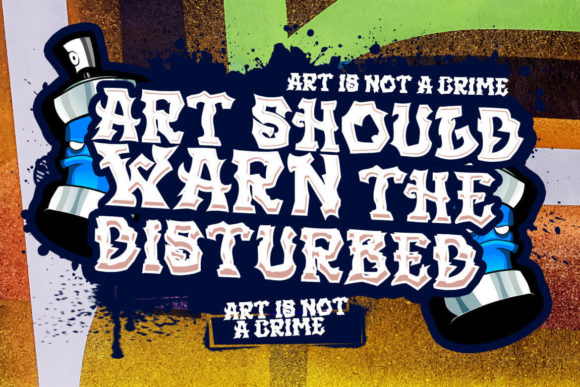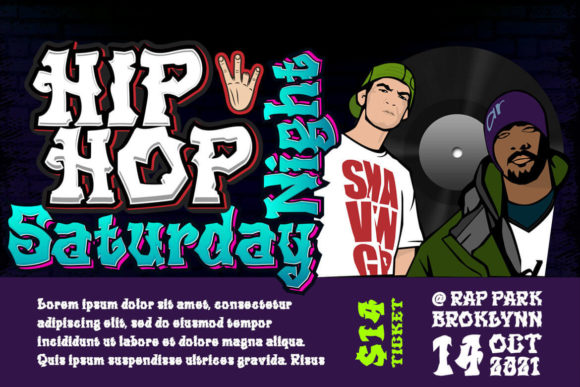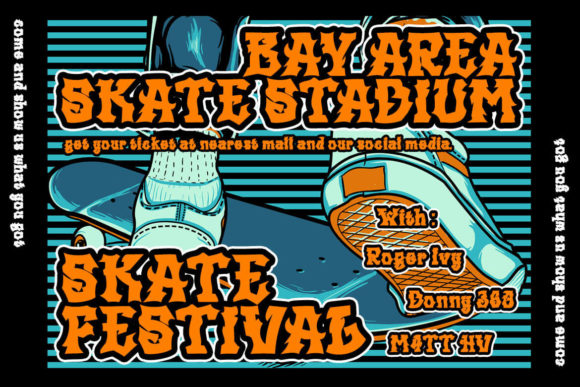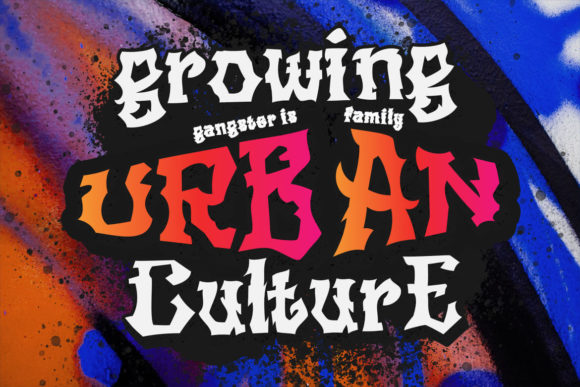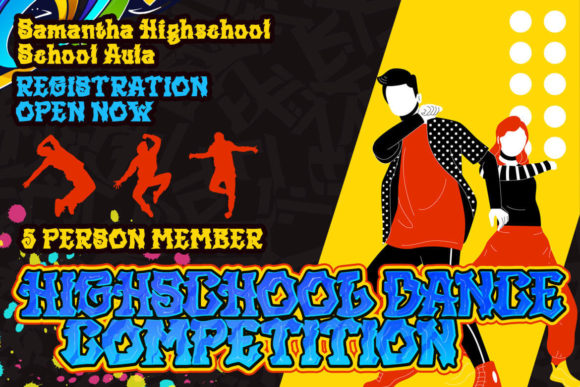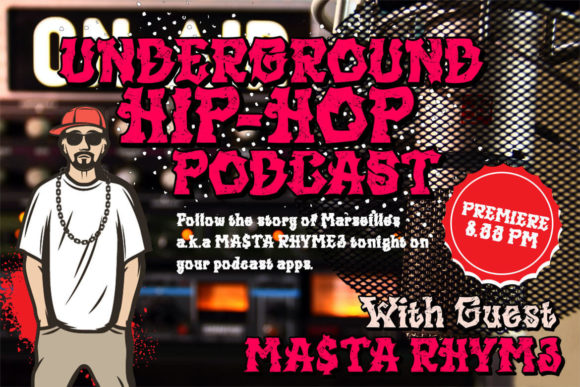
The Ultimate Graffiti Font for Creatives: Esgard
I’ll never forget the time I was working on a project for a trendy clothing brand, and I was struggling to find the perfect font to capture their edgy vibe. The client wanted something bold, eye-catching, and uniquely graffiti-inspired. After hours of scouring font websites and trying out different options, I stumbled upon Esgard – a game-changing graffiti-themed font that instantly elevated my design. In this article, I’ll share my experience with Esgard, its features, and how to make the most of it in your creative projects.
An Honest Review of Esgard
- ✨ Unique graffiti-inspired design that’s perfect for bold statements
- ✅ Highly versatile and adaptable for various design applications
- 💥 Excellent for headlines, titles, and logotypes that need a pop of personality
- 🎨 Great for creative hobbyists, designers, and crafters looking for a fresh font
While Esgard is an amazing font, there are a few things to keep in mind:
- ⚠️ Some characters may not work well in smaller font sizes, so it’s best to use it for headlines or titles.
- 🤔 Limited availability of certain special characters, but this can be addressed by using OpenType features.
The Backstory of Esgard
Esgard was inspired by the vibrant street art scene, where creativity knows no bounds. The font’s designer aimed to capture the essence of graffiti’s bold, expressive style and translate it into a digital format. The result is a font that’s both rebellious and beautiful, perfect for designers and creatives looking to add an edge to their work.
Q: What is Esgard’s primary use case?
A: Esgard is ideal for product logos, poster titles, headlines, packaging, film titles, logotypes, and trendy graffiti designs.
Q: Is Esgard compatible with non-Latin languages?
A: Esgard’s compatibility with non-Latin languages may be limited. Please check the font’s character set and language support before using it for non-Latin language projects.